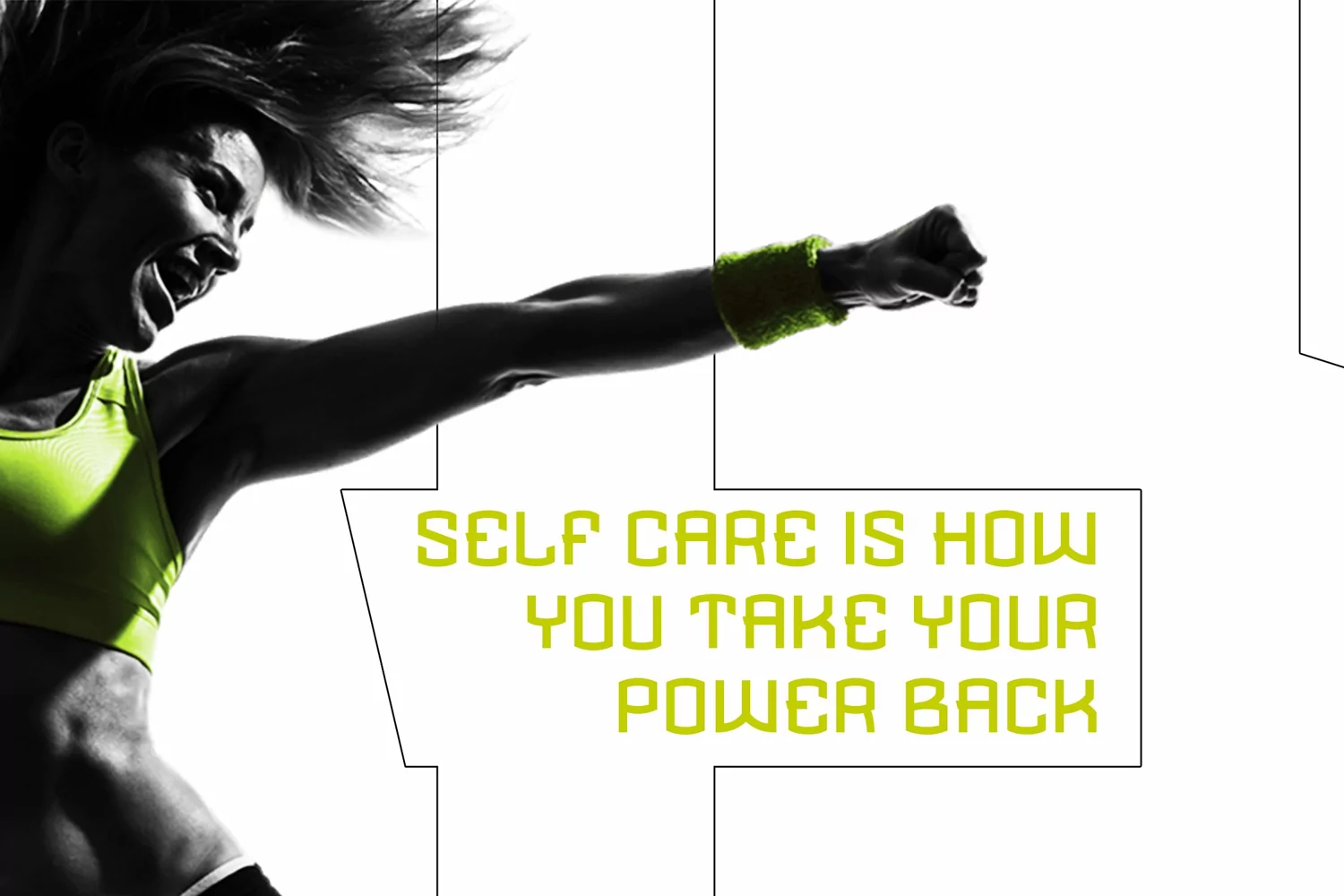
Fortune - Sporty Sans Serif Display Font
Fortune - Sporty Sans Serif Display Font is perfect for your up coming projects. Such as logo branding, editorial design, stationery design, sport design, blog design, modern advertising design, card invitation, art quote, home decor, book/cover title, special events and any more.